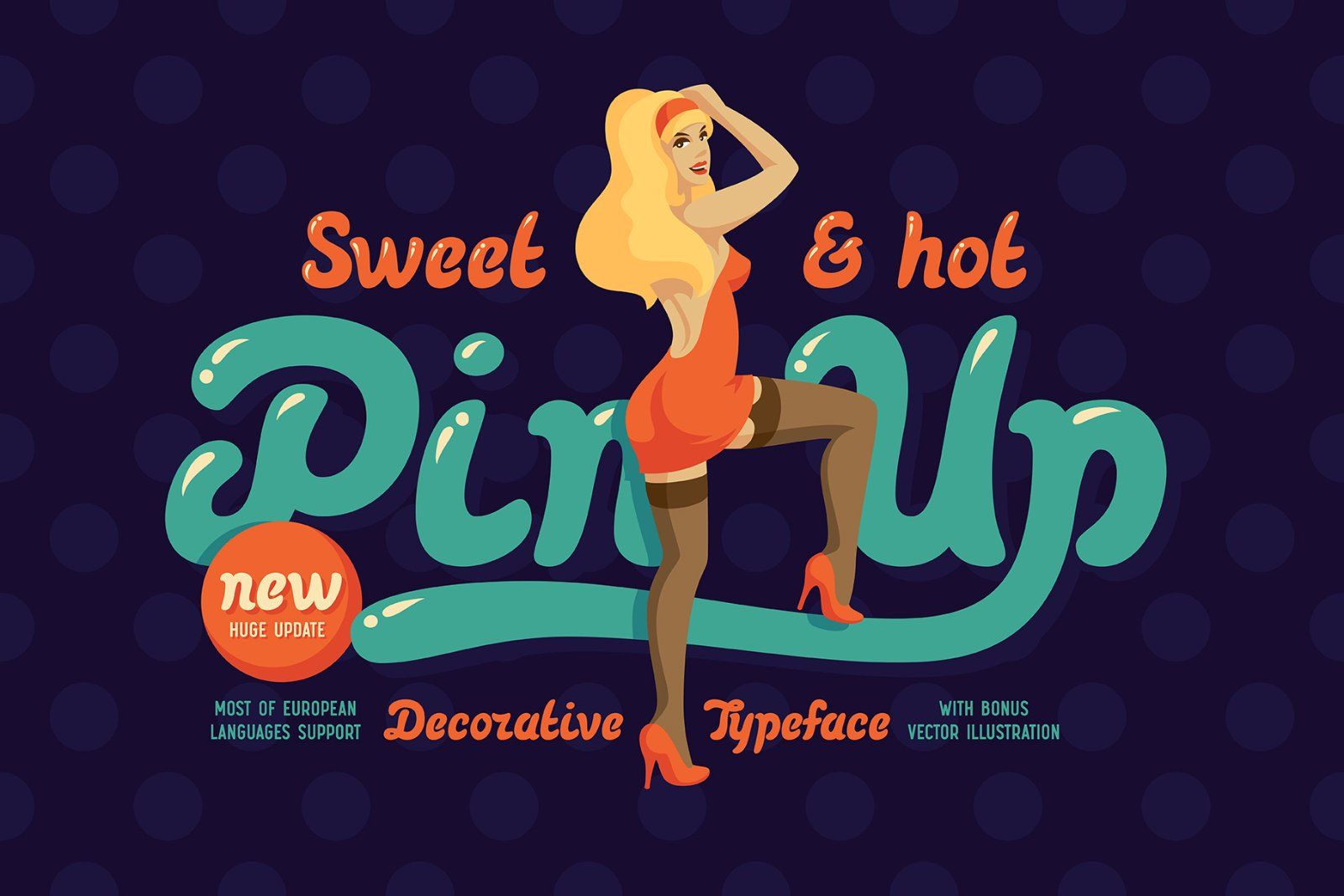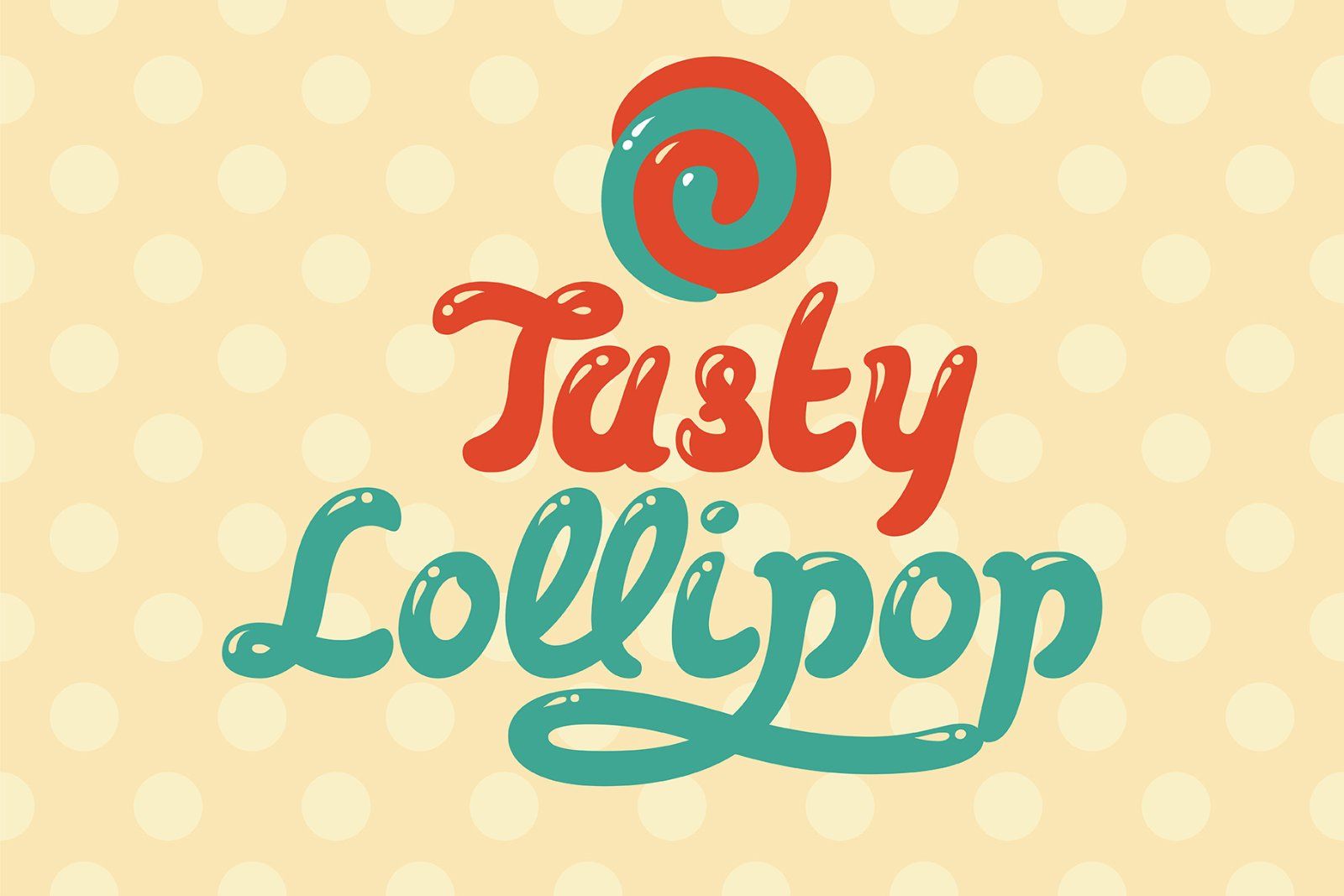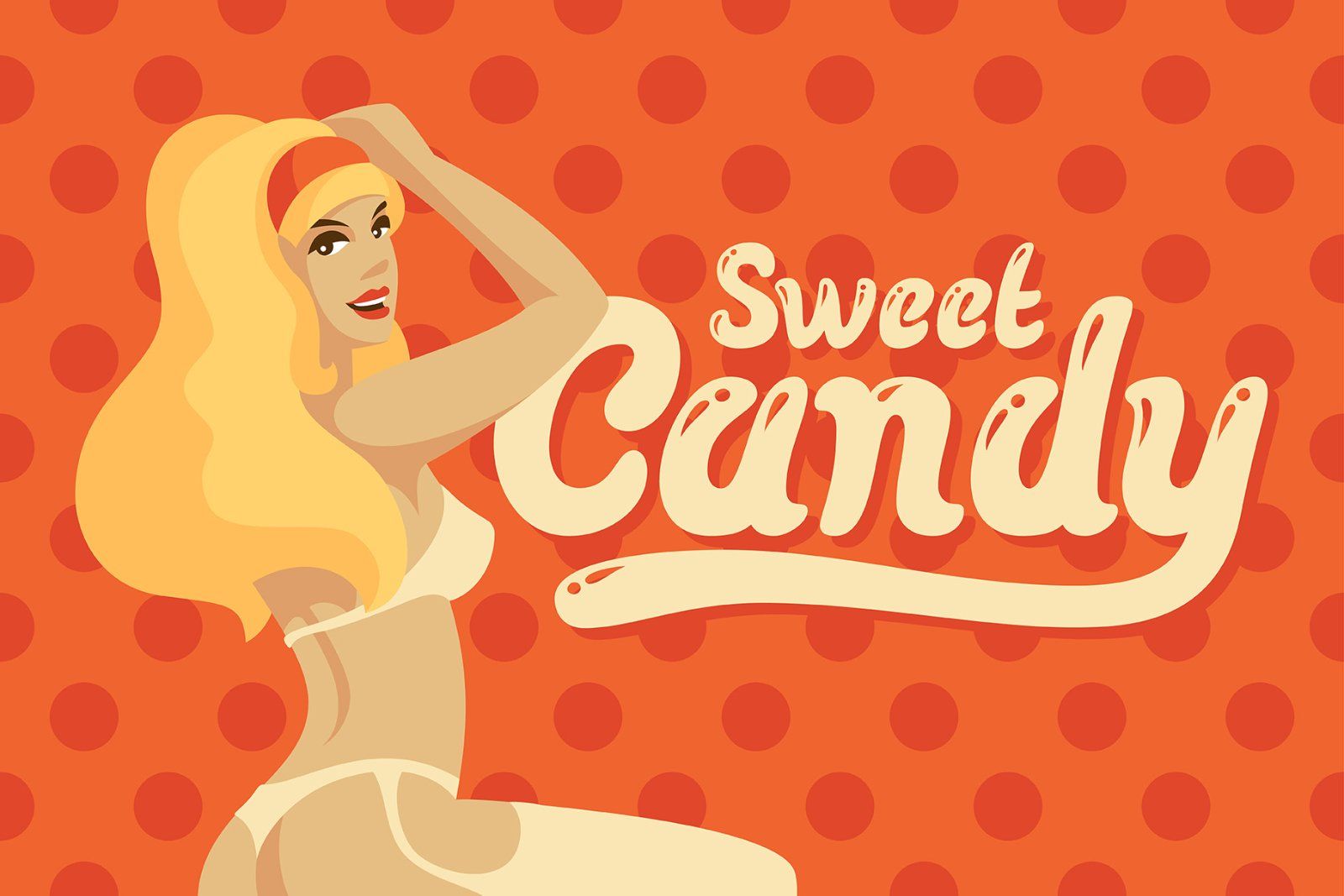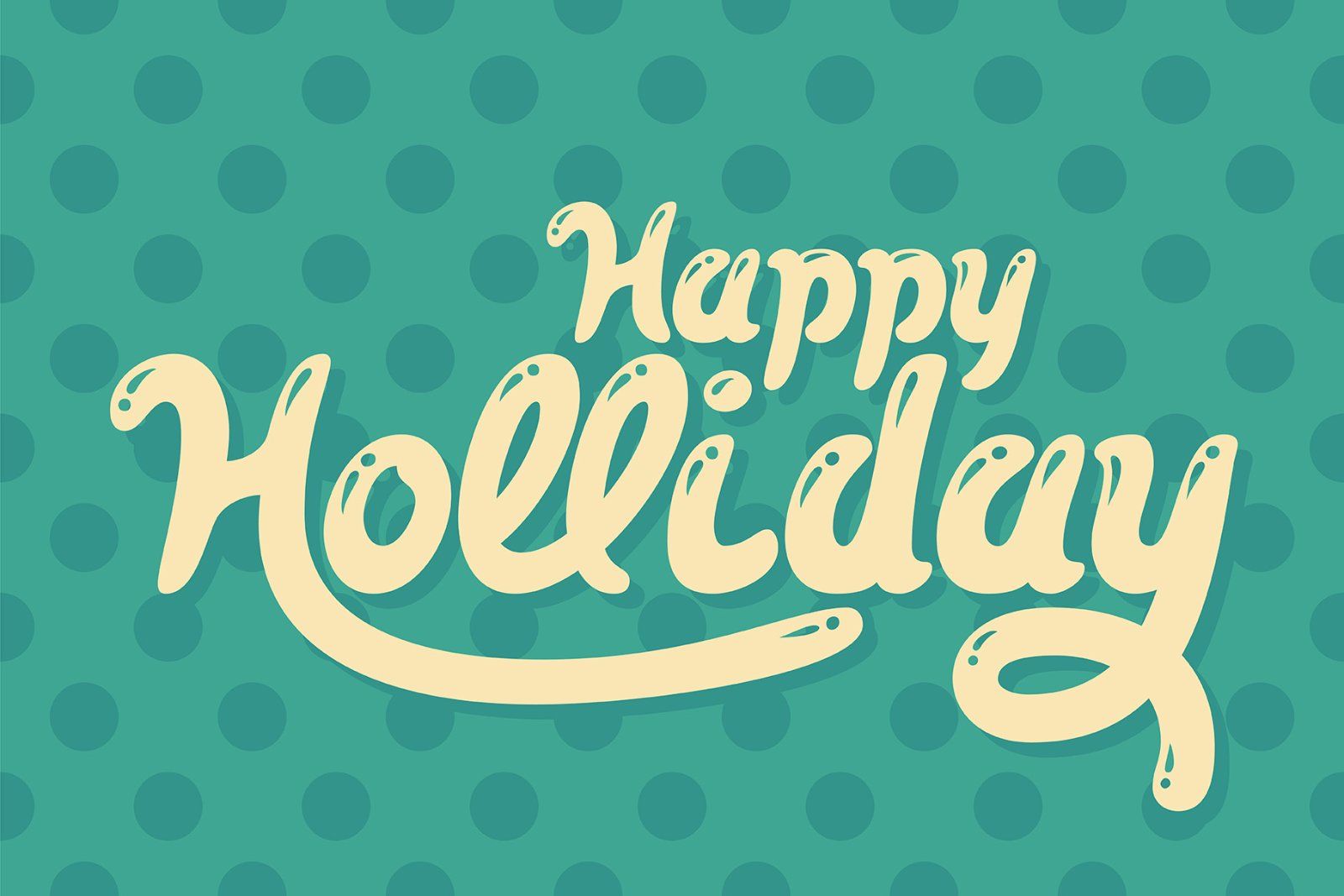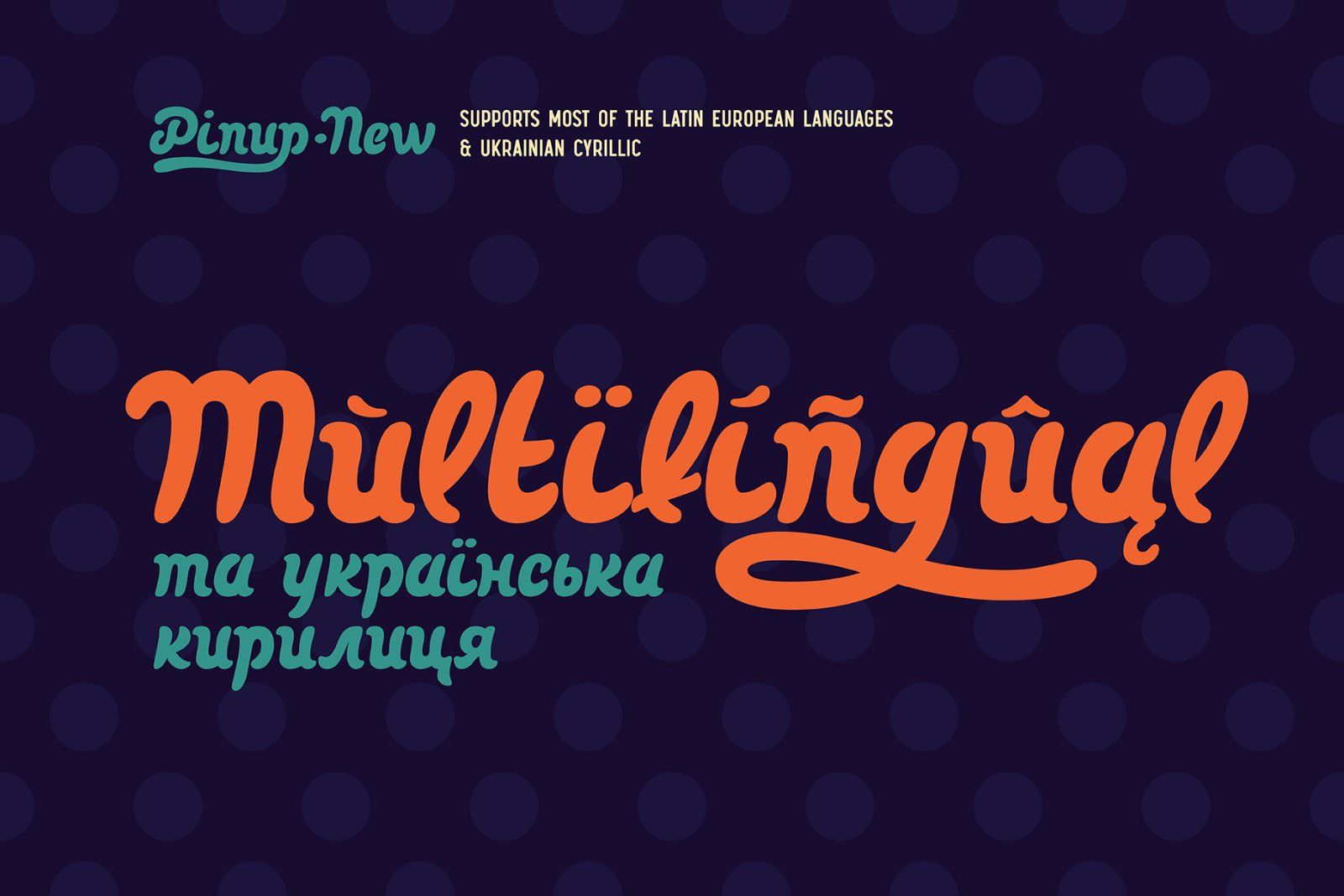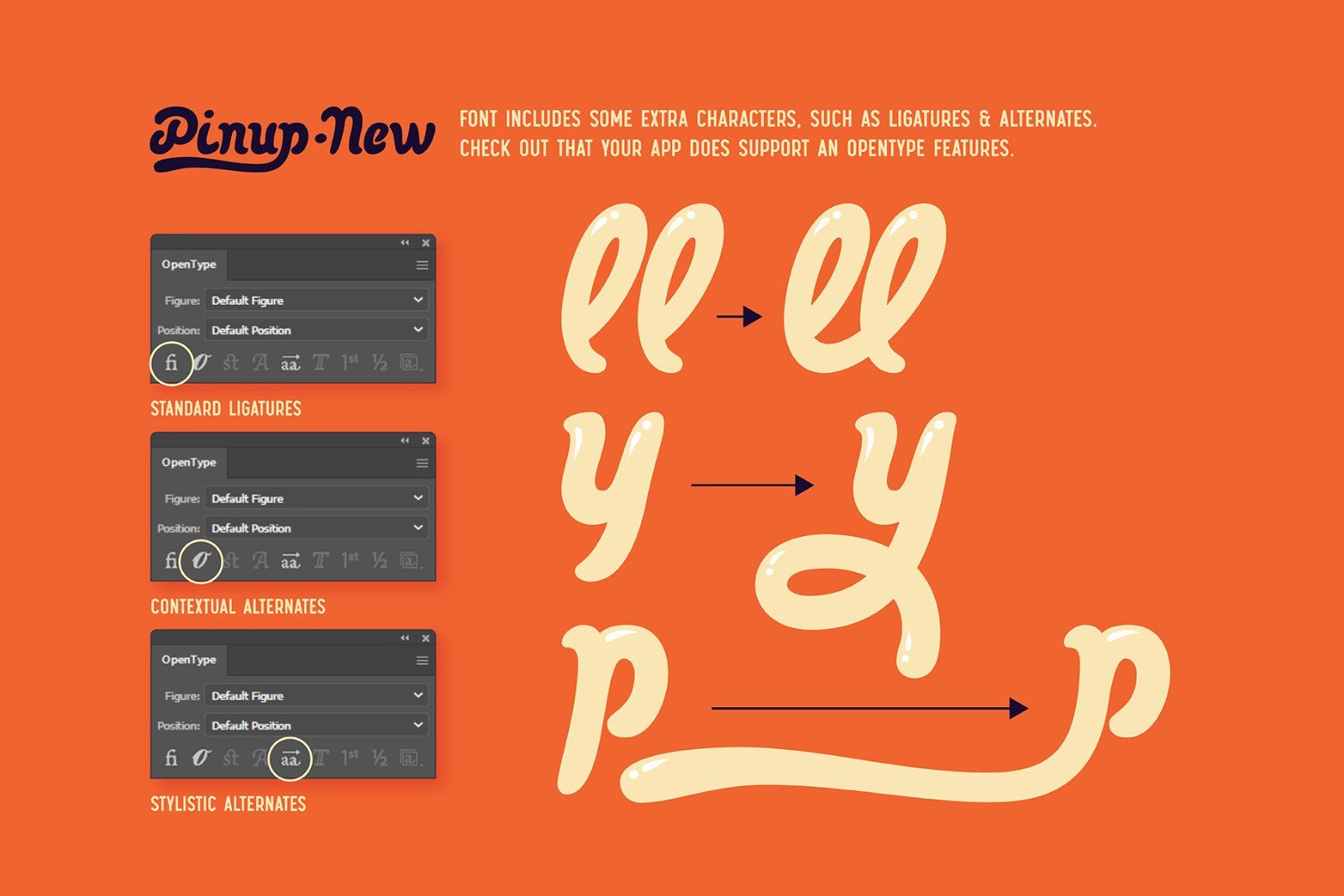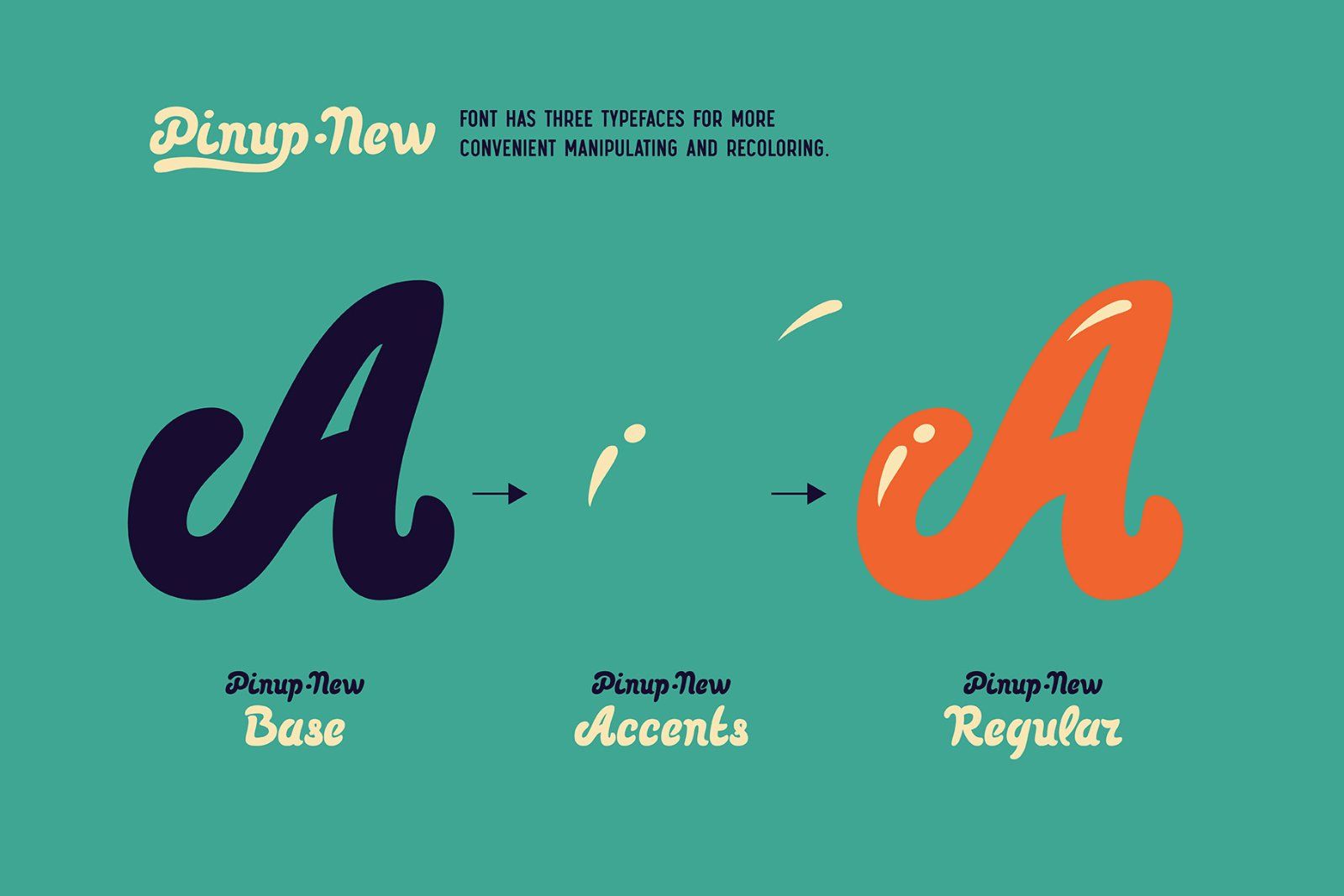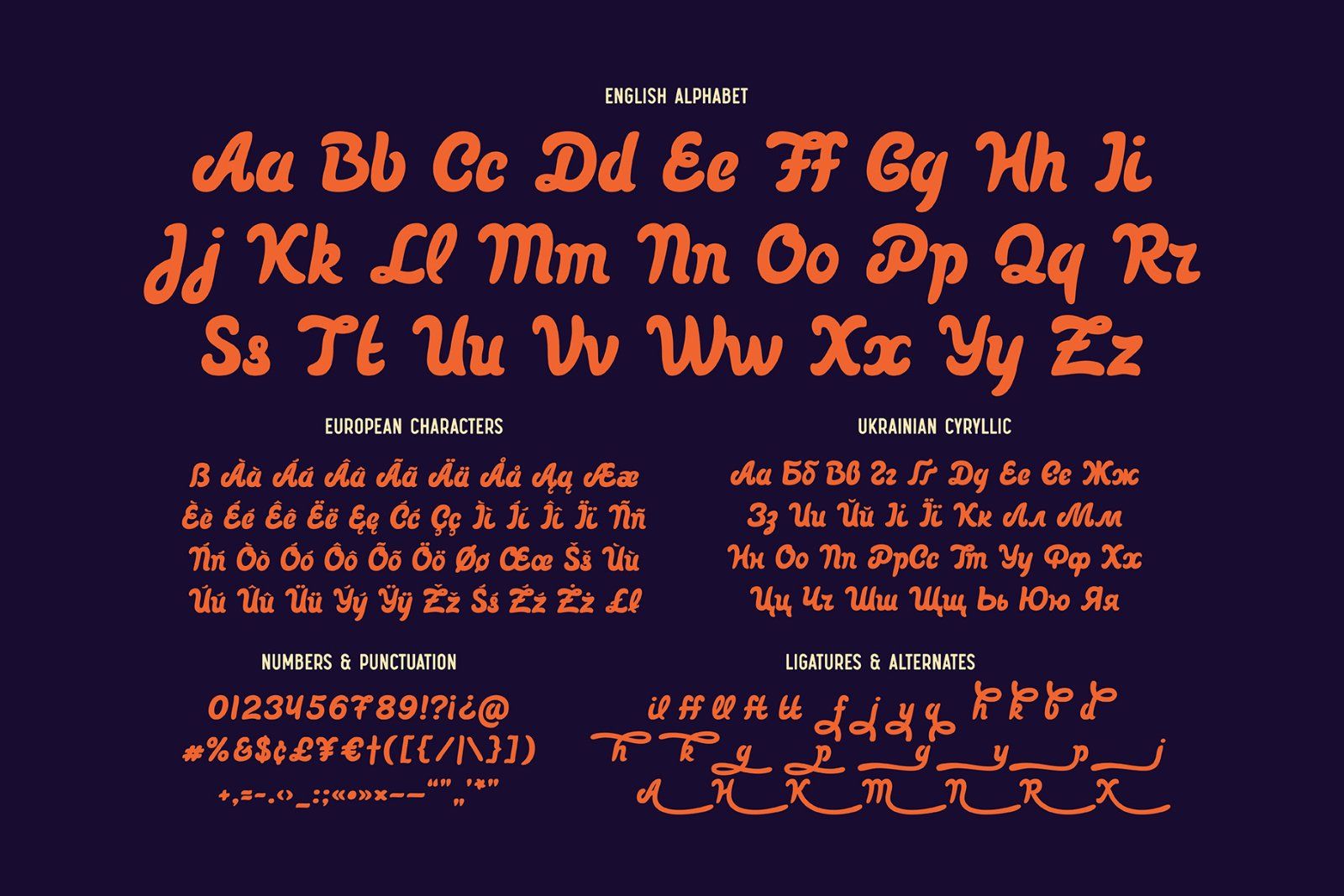
Hi, introducing a smooth vintage font - Pinup New. It has a nice tasty shape with a tiny separate accents. Pinup New font supports most of the European languages and also has Ukrainian Cyrillic characters. Pinup New consists of three fonts with separate accents for more convenient manipulating and recoloring.
Also there are an extra characters with modified letters shape, such as ligatures and alternates. Make sure that your app does support an OpenType features to access this extra characters. A pretty bonus is included in this package - vector illustration of a beautiful pinup style female.